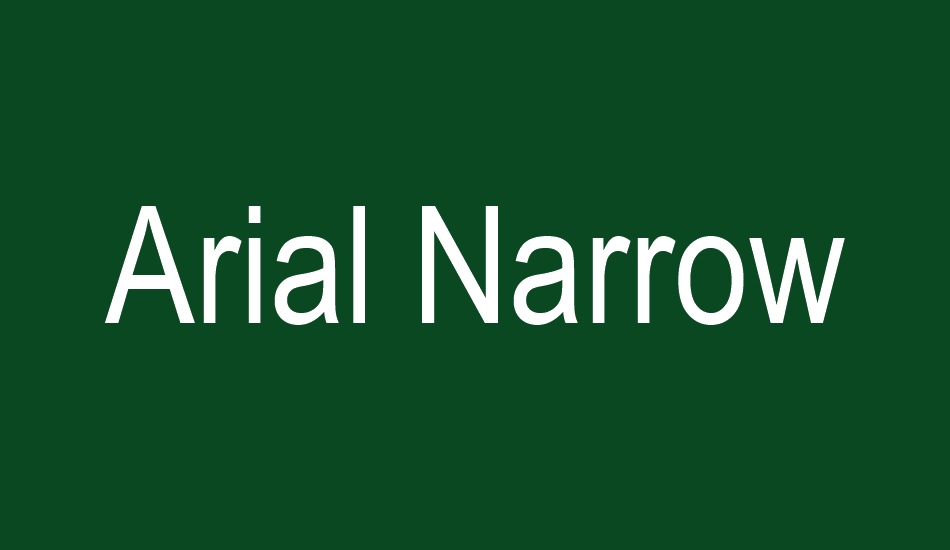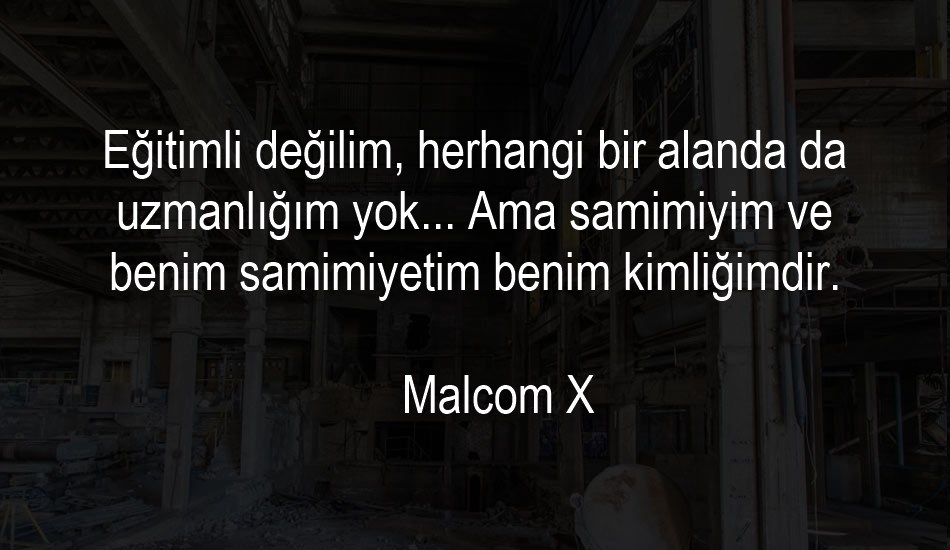
Arial Narrow is a condensed sans-serif typeface and a core member of the Arial font family. It was originally designed in 1982 by Robin Nicholas and Patricia Saunders of the Monotype Drawing Office. Microsoft licensed Arial as one of the core fonts for Windows 3.1 in 1992, and Arial Narrow shipped as part of that same family package.
Arial is a neo-grotesque typeface — a design based on nineteenth-century sans-serifs, regularized for continuous body text and to form a cohesive font family. The Narrow variant takes that same structure and compresses the horizontal width of each character, producing a tighter letterform that saves horizontal space without changing the vertical scale.
Terminal strokes are cut on the diagonal, which helps give the face a less mechanical appearance. The curves are softer and fuller than in many industrial sans-serif typefaces, which keeps the condensed version from feeling rigid or cold on the page.
The Arial Narrow family includes four styles: Regular, Italic, Bold, and Bold Italic. This gives designers a usable range for typographic hierarchy — body text in Regular, emphasis in Bold, annotations in Italic — all within the same condensed footprint.
Best Use Cases for Arial Narrow Font
Arial Narrow fits wherever horizontal space is limited but text clarity is still required:
Business documents and reports — Annual reports, legal documents, and corporate presentations often use Arial Narrow to fit more content per page without reducing font size.
Data tables and spreadsheets — Column headers and cell labels stay legible in narrow widths without wrapping.
Government and institutional forms — Pre-printed forms with fixed field widths rely on condensed typefaces to keep label text within boundaries.
Newspaper and editorial layouts — Multi-column print layouts use condensed sans-serifs to maintain text density across narrow columns.
Posters and signage — Bold weight works well for titles where horizontal space is limited but the text needs to remain large and legible.
UI design (limited contexts) — Sidebar navigation, data-heavy dashboards, and compact UI panels use Arial Narrow where standard-width type would overflow containers.
Pairing Suggestions
Arial Narrow pairs well with its wider sibling, Arial Regular, for body copy — the contrast between condensed headings and normal-width paragraphs creates clear visual hierarchy. For a more modern pairing, use Roboto Condensed or Archivo Narrow alongside Arial Narrow if you need open-license alternatives with a similar voice.
Avoid pairing Arial Narrow with serif display typefaces in the same weight range — the contrast becomes uncomfortable. If you use a serif for headings, switch Arial Narrow to a supporting or caption role instead.